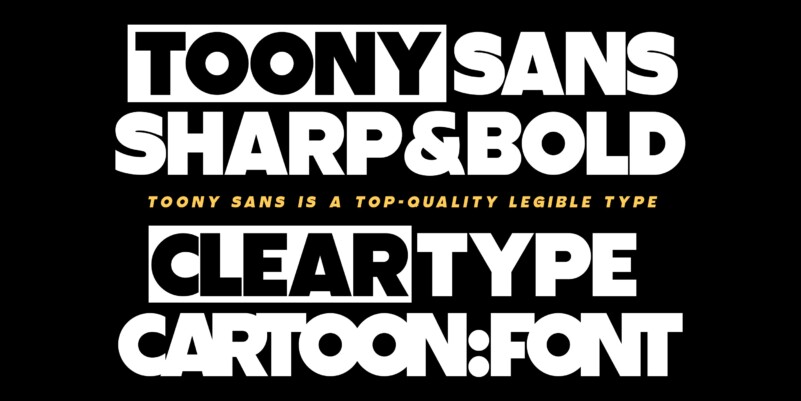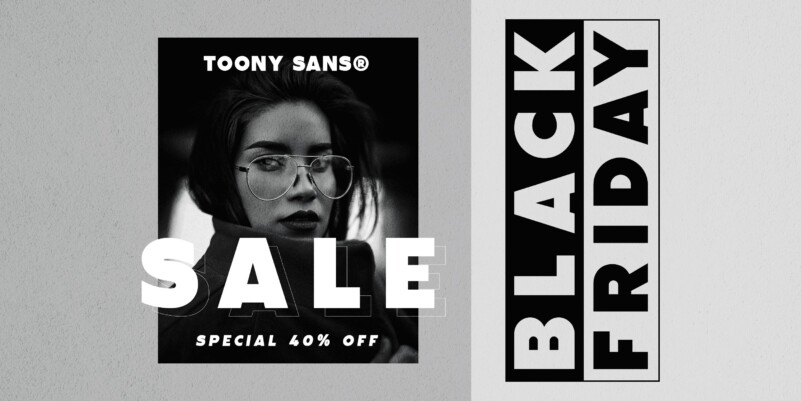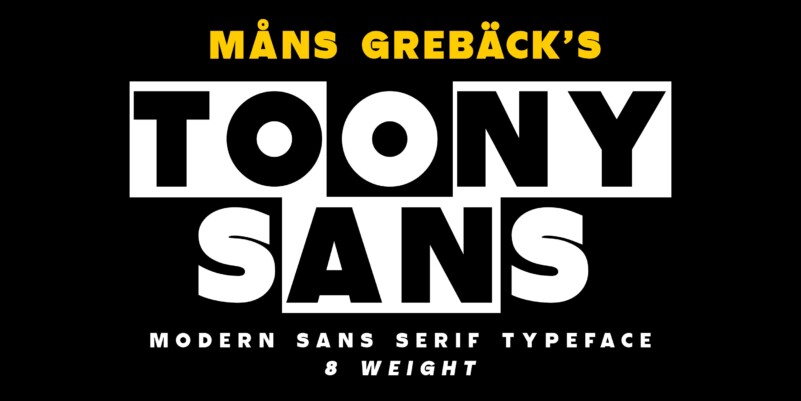
Toony Sans Font
Toony Sans Font is a bold sans serif font from Mans Greback that commands attention and makes a powerful statement. A nod to beloved animations, its crisp, sans-serif form captures an essence of professionalism with just a touch of nostalgic charm. Toony Sans presents a clean, streamlined look, perfect for projects requiring clarity and elegance. Its sharp edges and precise design give it a contemporary feel, yet there’s an undeniable warmth that resonates with every character. The font is built with advanced OpenType functionality and has a guaranteed top-notch quality, containing stylistic and contextual alternates, ligatures, and more features; all to give you full control and customizability. It has extensive lingual support, covering all Latin-based languages, from Northern Europe to South Africa, from America to South-East Asia. It contains all characters and symbols you’ll ever need, including all punctuation and numbers.